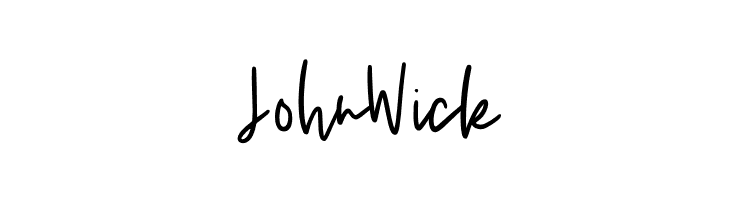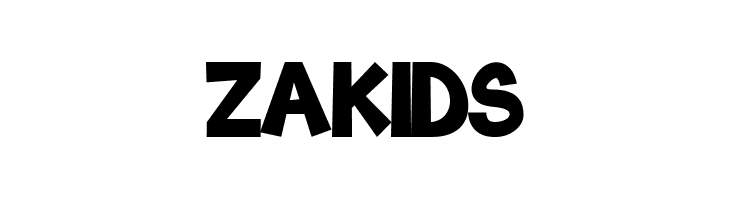
A modern, geometric sans-serif font with clean lines and balanced structure.
A bold, flowing script font with interconnected characters and a playful elegance.
A playful, bold font with rounded characters and smooth curves.
A bold, playful font with rounded edges and a lively style.
A flowing, cursive font with elegant, interconnected letters and a handwritten style.
A playful, hand-drawn script font with bold, flowing characters.
A playful and whimsical font with curly, decorative uppercase letters and bold, consistent numbers.
A playful and whimsical script font with decorative loops and swirls.
A lively and elegant script font with flowing, cursive letterforms.
A festive, cursive script font with bold strokes and elegant loops.
A whimsical and festive script font with elegant, flowing cursive letters.
A bold, high-contrast font with a modern and decorative style.
A bold and dynamic script font with fluid strokes.
A festive and decorative font with playful embellishments, perfect for holiday themes.
A bold, flowing script font with elegant curves and modern flair.
A bold, expressive script font with flowing, connected characters.
A playful, handwritten cursive font with smooth, flowing strokes.
A bold, cursive font with fluid, elegant strokes.
A bold, flowing script font with elegant, cursive letterforms.
A playful, ghost-themed decorative font with whimsical and spooky characters.
A playful, rounded font with a whimsical, childlike charm.
A futuristic, geometric font with sharp angles and a tech-inspired design.
A bold, rounded font with a strong, modern presence.
A bold, playful font with rounded, interconnected characters.
A dynamic brush script font with bold, sweeping strokes and a modern, edgy style.
A playful, hand-drawn font with a bold, doodle-like style and sketchy outlines.
A bold and expressive script font with dynamic flow and smooth curves.
A bold, expressive script font with high contrast and flowing cursive design.
A bold, rounded font with a playful and friendly style.
An ornate and decorative font with intricate swirls and flourishes.